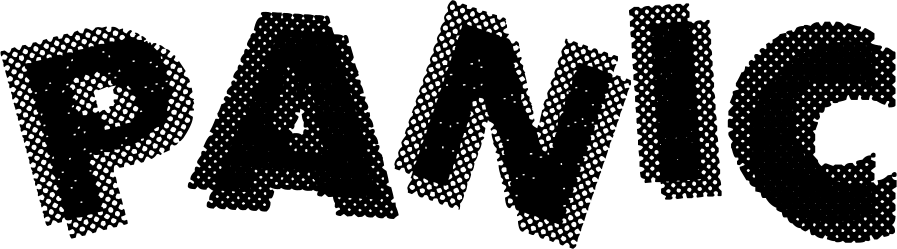
Panic Font
Another distorted font named Panic is here to level up your text-based layouts. This one with messy and glitch letters can be suitable for games, apps, video clips, or wherever you consider. Just so you know, lowercase letters and punctuation aren’t included. By the way, make sure to check out our updates; new resources are added constantly.